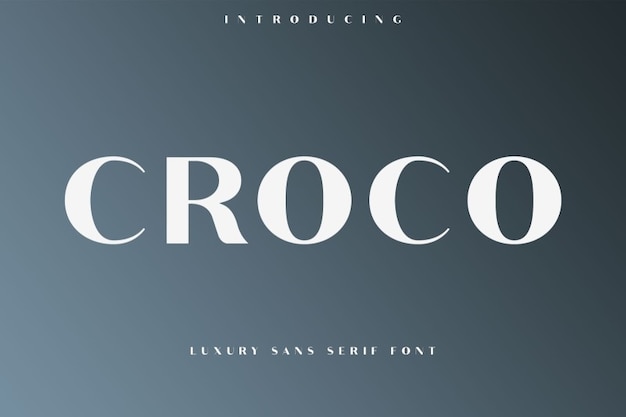
Croco Font
Croco font embodies the epitome of modern luxury. Its sleek, elegant lettering exudes sophistication, making it the ideal choice for conveying opulence and refinement in your designs. Each character carries an air of exclusivity, akin to the finest brands and haute couture. With Croco, your text elevates any project to a realm of high-class, contemporary elegance that commands attention and admiration.